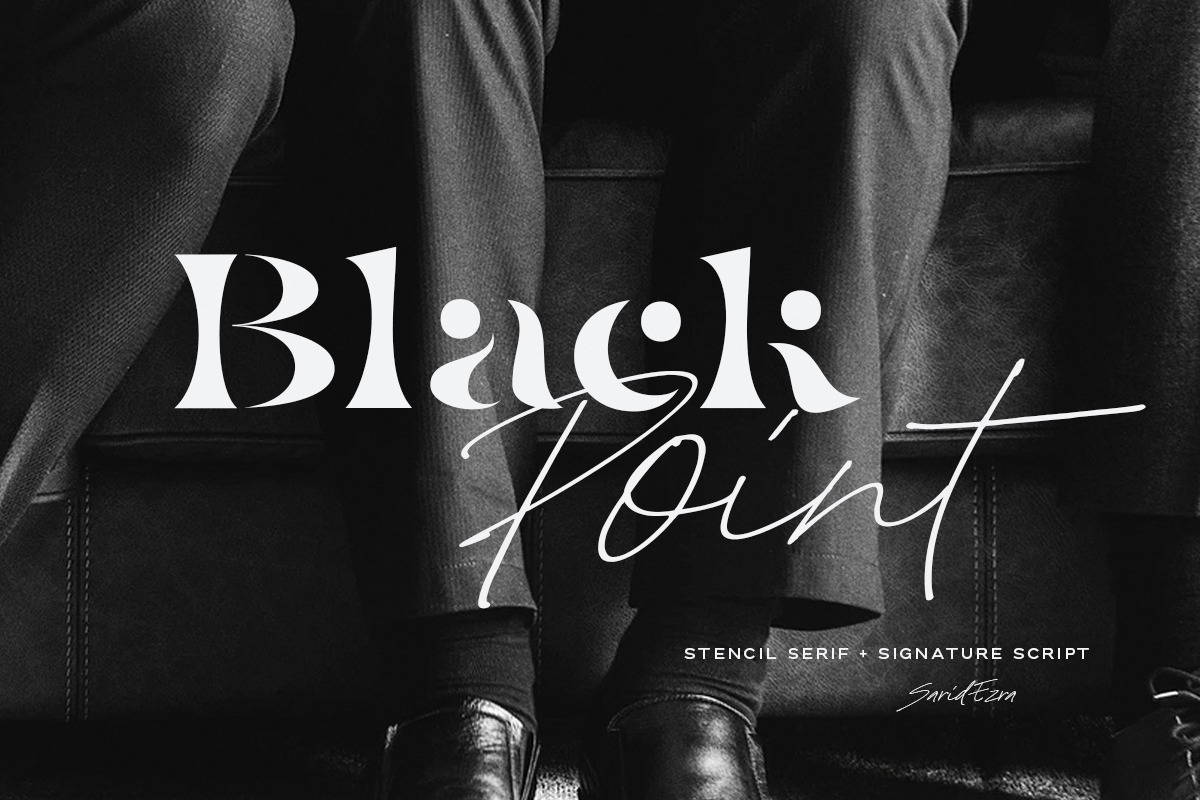
Black Point - Modern Font Duo
Introducing, Black Point - Modern Font Duo | Stencil Serif & Signature Script
Black Point is perfect combo fonts with modern stencil serif and signature script font. Contain two fonts, the delicate and stylish stencil serif and a free hand writing script. This font duo also support multilingual, number and symbol, with many ligatures in the signature script. You can use this font for any purpose and of course without trying to find the font pairing. This font perfect for branding, logo, fashionable design, magazine, and more.